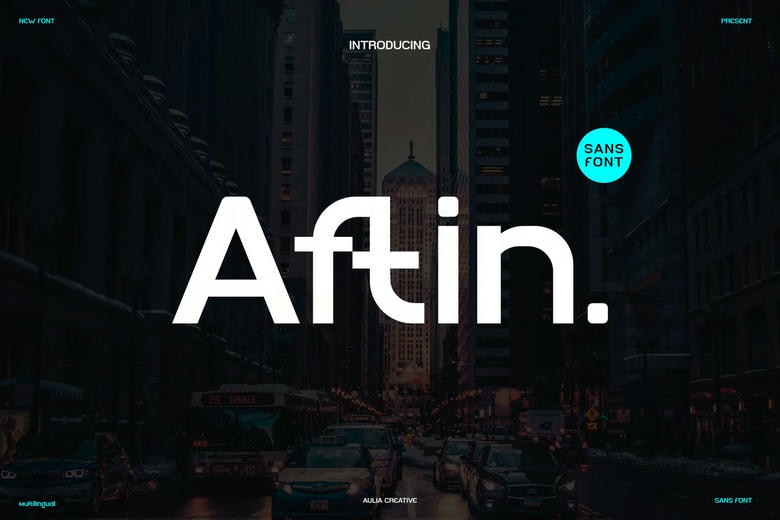
Aftin Font
Aftin is a bold and authentic display font that gives any design a modern and confident scope. It is an easy choice with its clean lines and high visual presence in a title, branding, poster, and digital graphic, so creators who wish to have a new and bold typographic style should pick the font.
Aftin Sans Serif Font